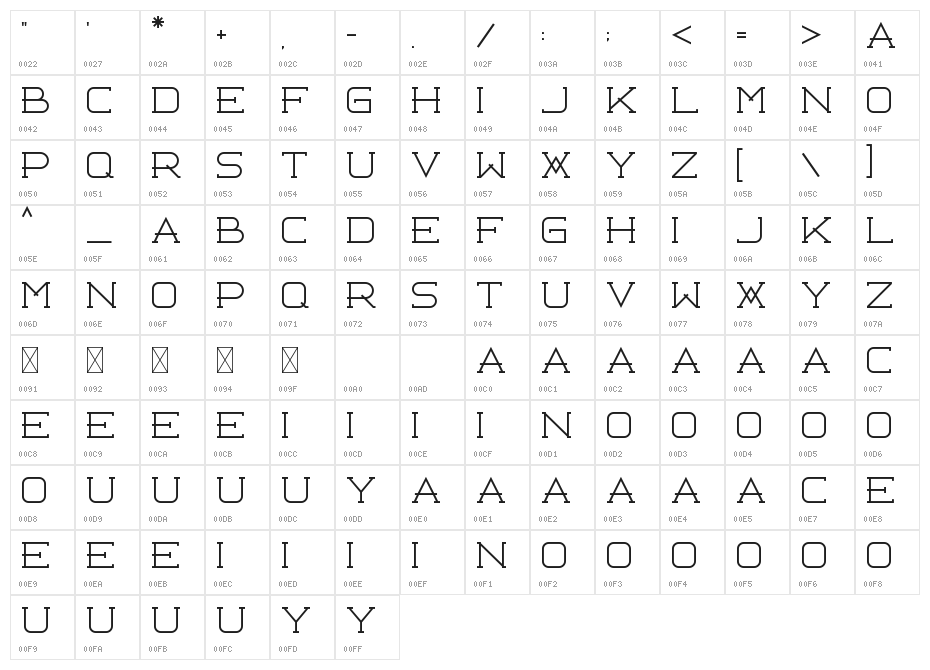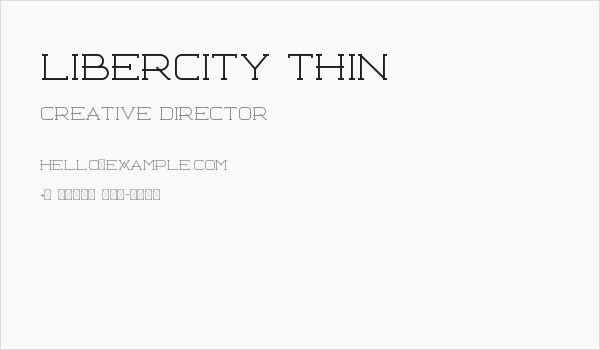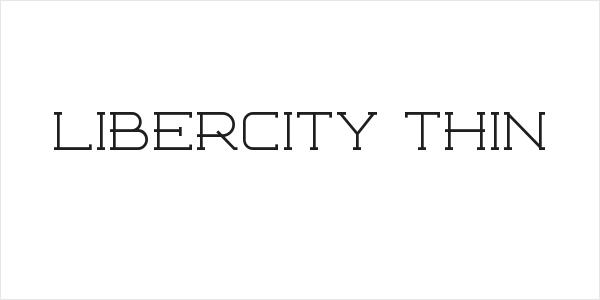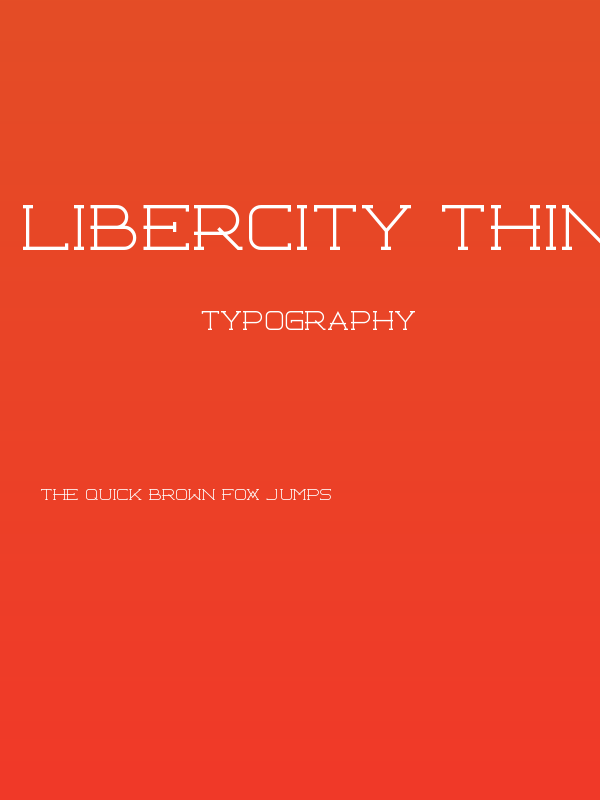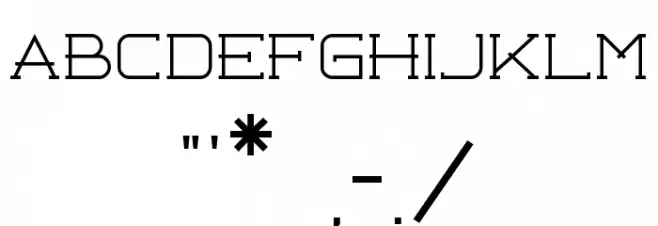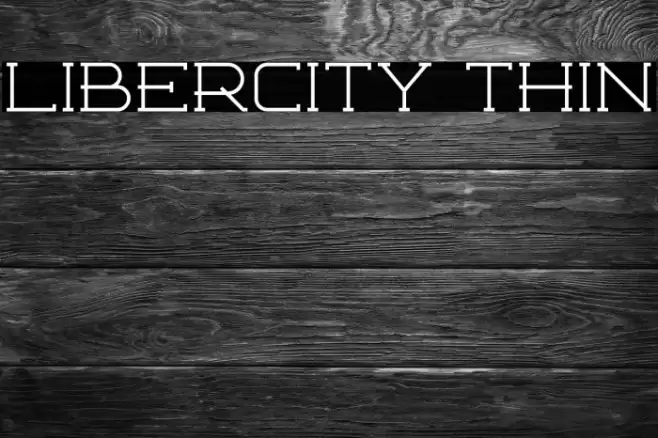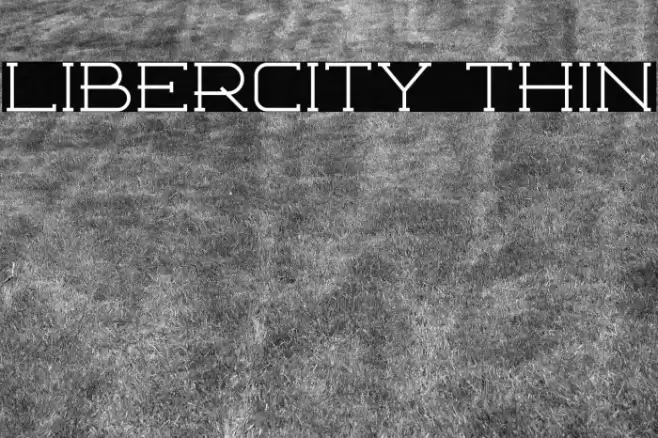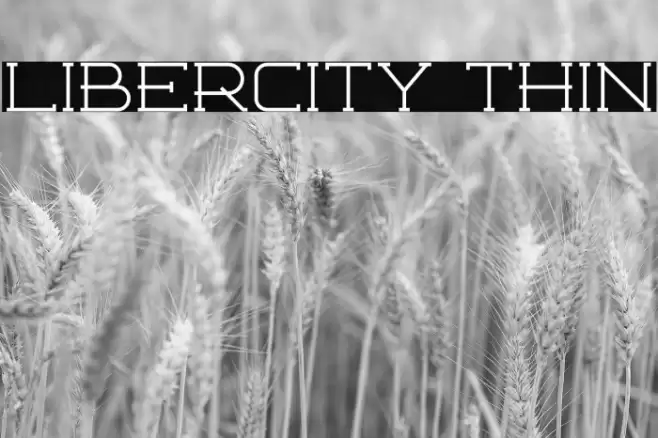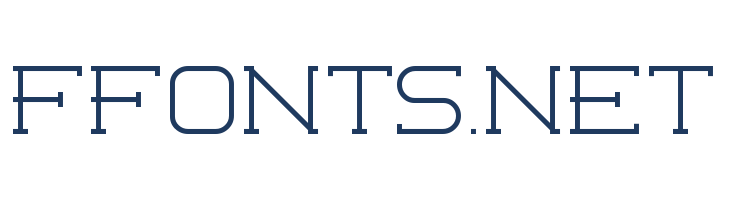
Libercity Thin Font
This font exhibits a geometric and structured design, characterized by its thin, linear strokes and angular edges. The uniformity in line thickness gives it a clean and modern appearance, while the sharp angles and straight lines add a touch of sophistication. The characters are well-spaced, providing a balanced and airy feel, making it suitable for both digital and print media. Its minimalistic style ensures readability and versatility across various applications.